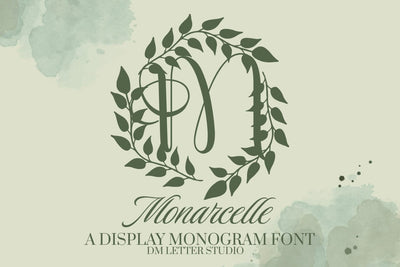
Monarcelle Monogram Font
Meet Monarcelle, the Monogram Font
Monarcelle Monogram Font turns simple initials into poised, elegant marks. Lines feel smooth. Curves stay balanced. Because the counters remain open, tiny tags still read clearly. Use it for wedding suites, boutique logos, keepsake gifts, and luxury packaging. Moreover, Monarcelle pairs beautifully with soft serifs and modern sans, so your layouts look refined without extra work.
Where the Monogram Font shines
Set single, double, or triple initials for logos, seals, and submarks. Then frame them with laurel rings, oval borders, or fine rules to echo the graceful structure. Since the proportions favor symmetry, polished compositions come together in minutes. As a result, thumbnails stand out on crowded marketplaces and listings feel consistent across products.
Design tips for Monarcelle Monogram Font
Keep initials large and let white space breathe. Pair your headline monogram with a quiet serif or humanist sans. Meanwhile, add micro shadows, thin inner strokes, or a delicate frame for depth. Because the forms feel airy, metallic accents and textured papers raise perceived value. However, keep copy short so the monogram remains the hero.
Select stylistic alternates for key letters
Curves tuned for foil, letterpress, engraving, and clean vinyl cutting
Why creators choose this Monogram Font
You need elegance that reads at a glance and sells fast. Monarcelle delivers. It catches the eye in thumbnails, speeds your layout process, and keeps your brand voice cohesive from invites to favors. Therefore, every piece feels intentional, premium, and memorable.